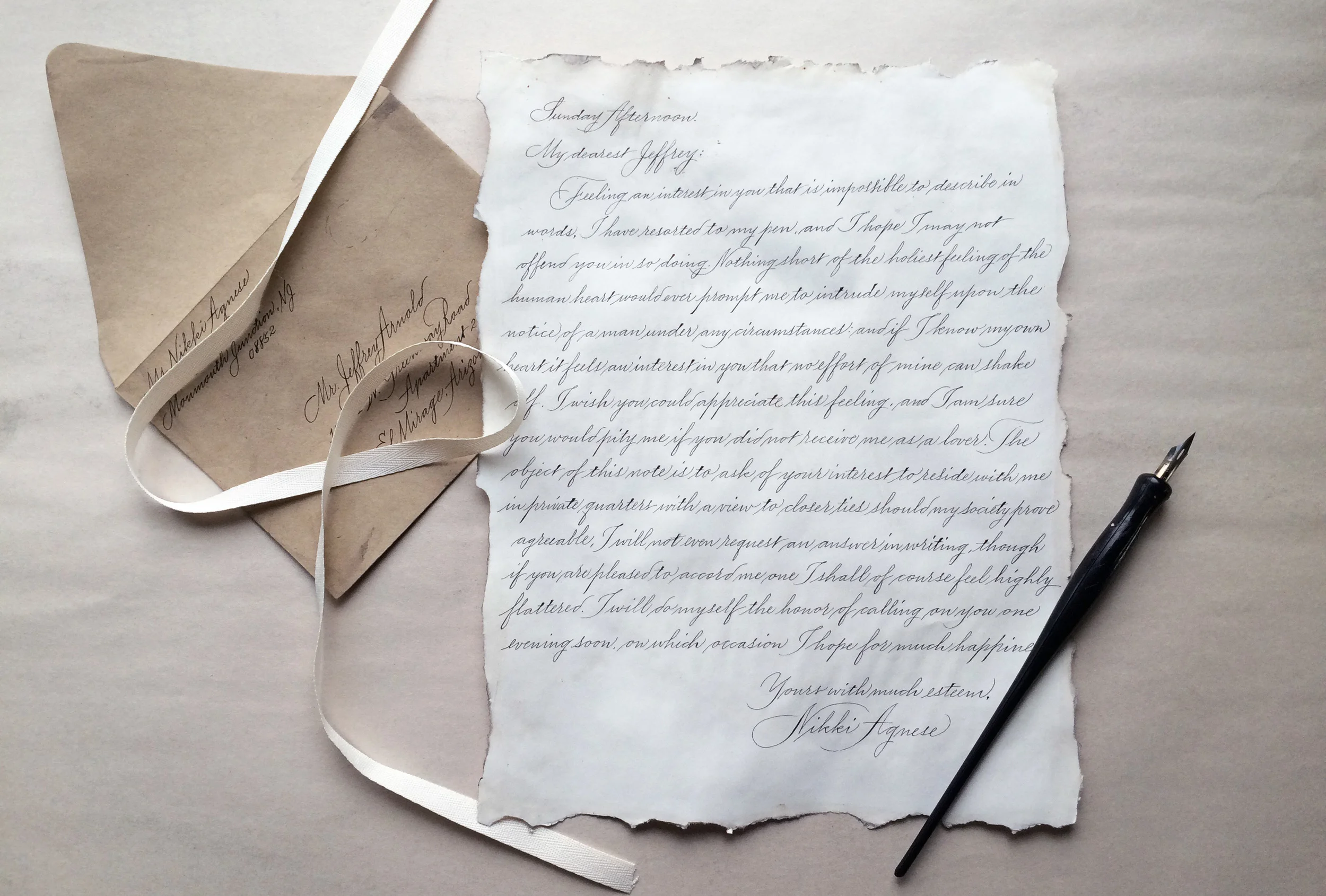
Washington, D.C. — A client reached out to see if I could mimic a Victorian-era love letter. Since I did not have vintage paper on hand, nor had the time to go look for some, I had to craft my own.
After doing some research on distressing paper and consulting with the ever-knowledgeable gang at the Flourish Forum, I was able to transform my Strathmore ivory stock into vintage-like paper, complete with faux deckle edges, smudges of "dirt", and a whole lot of wrinkles. To enhance the overall look, I mixed Higgins Eternal ink—which is fairly grey in color already—with walnut ink to achieve the faded aesthetic of the letter.
It turned out to be quite the labor of love, and I believe that the end result captured the heartfelt words that lay within.